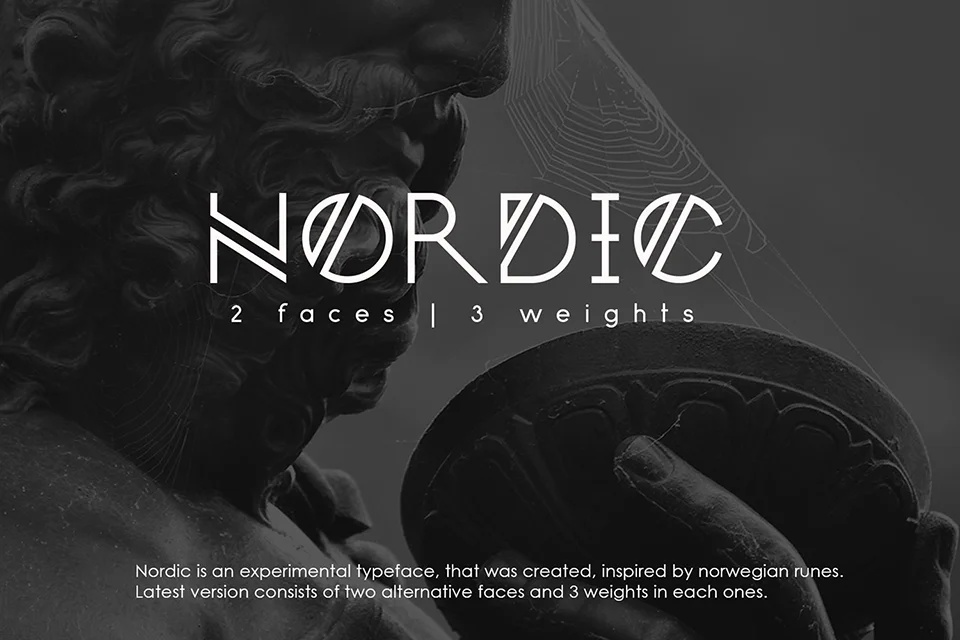
Nordic Font
Nordic is a distinctive modern font family inspired by Scandinavian runes and sleek geometric shapes, perfect for everyday design needs. It comes in two versions, each offering three weights: light, regular, and bold. The font includes uppercase letters, numbers, and basic punctuation, making it ideal for logos, monograms, titles, and posters that require a unique touch.
The primary version is versatile enough for supporting text, while the alternative version is perfect for large titles and headlines. Nordic looks great at any size, whether small or large.